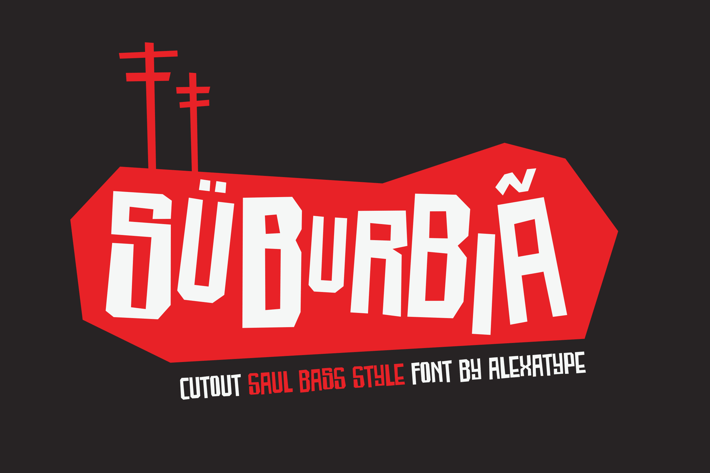
SUBURBIA - cutout saul bass style font
introducting SUBURBIA
SUBURBIA, using simple, casual appearance, geometric shapes and cut-out feel.
Perfect to deliver a powerful message on your project.